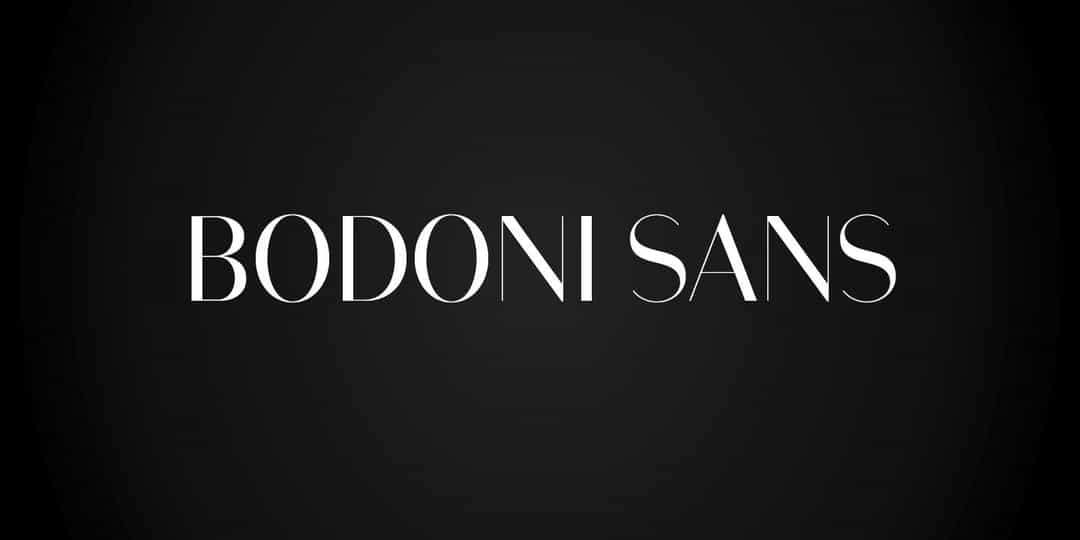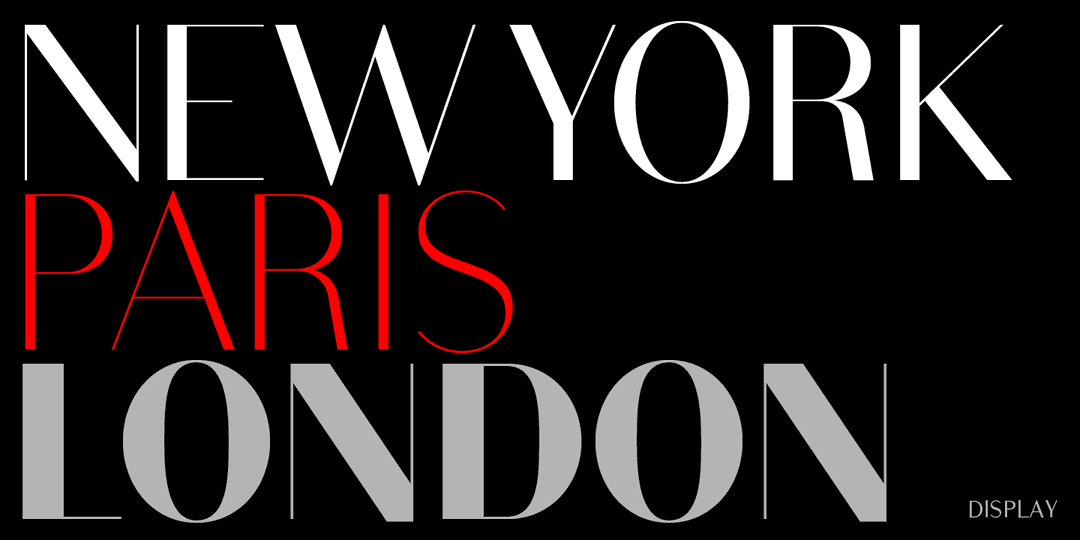
Bodoni Sans Text Font Family
Bodoni Sans is a new classic, but built on the history of two hundred years. Fresh and contemporary, but at the same time somehow familiar. Stylish and sophisticated, bold and graceful. Bodoni Sans is not just Bodoni without serifs. It retains the classical proportions of the capitals and x-heights, but the letterforms have been rebalanced for use without serifs. Although some of the widths were adjusted for the contemporary appearance, and a new Light weight was designed, for example.